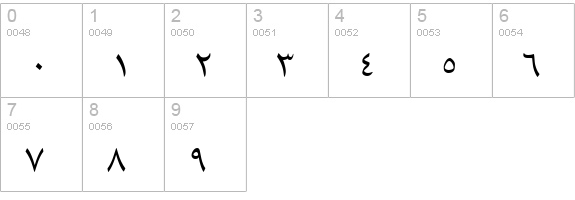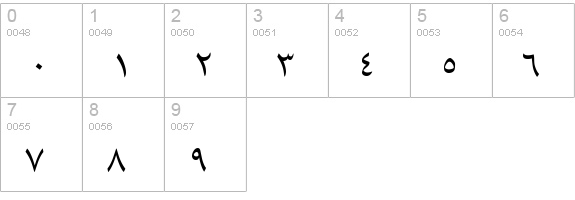
B Yagut Font Details
Introducing B Yagut font, a modern and elegant typeface that is sure to make a bold statement in any design project. With its sleek lines and stylish curves, this font exudes sophistication and professionalism. Whether you're designing a logo, poster, or website, B Yagut font will elevate your project to a whole new level. The best part? B Yagut font is completely free to download at FontsMarket.com. That's right, you can add this stunning font to your collection without spending a penny. So why wait? Download B Yagut font today and start creating eye-catching designs that will leave a lasting impression.